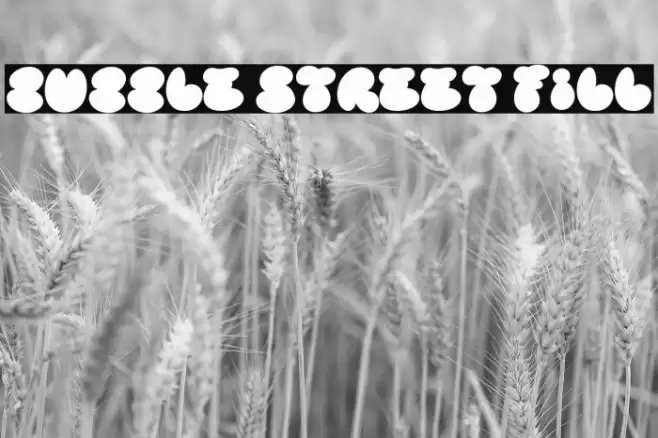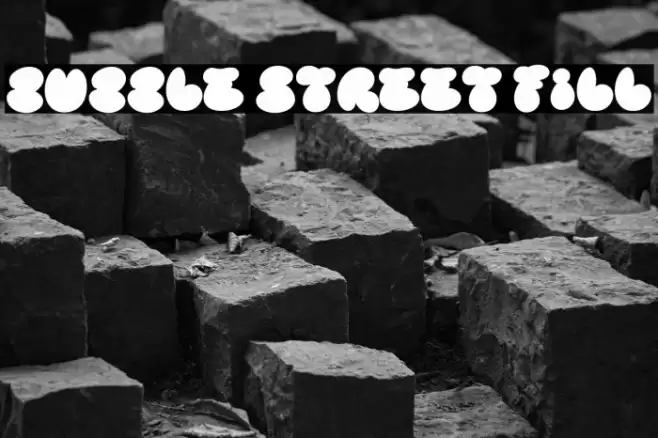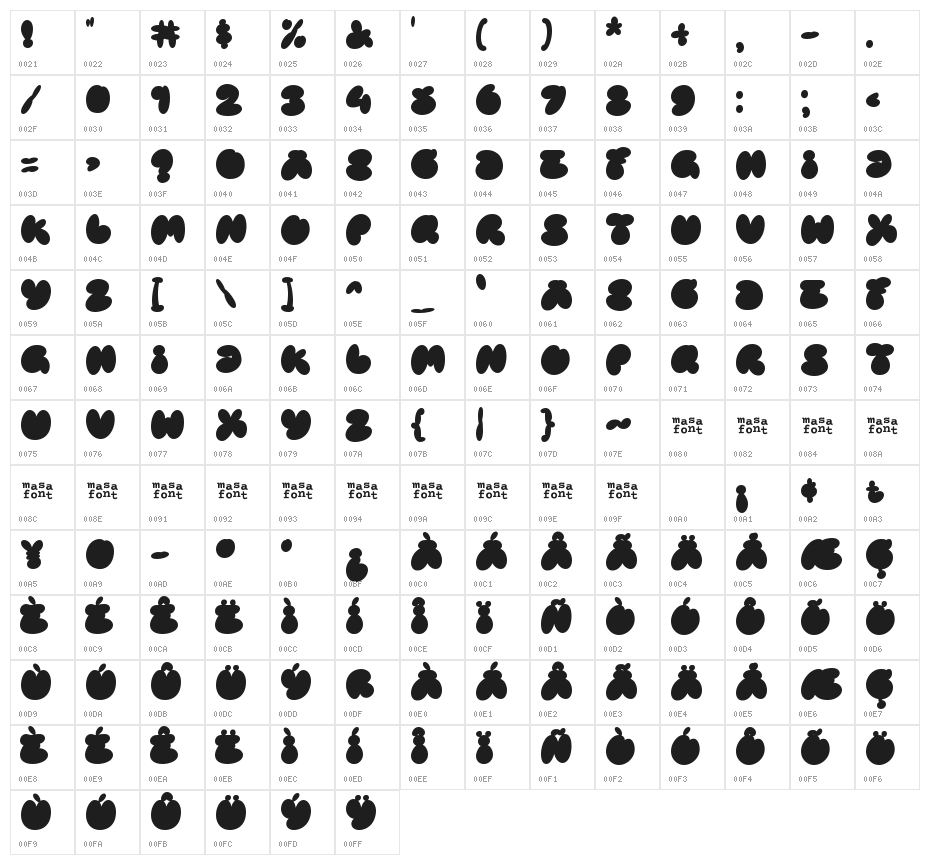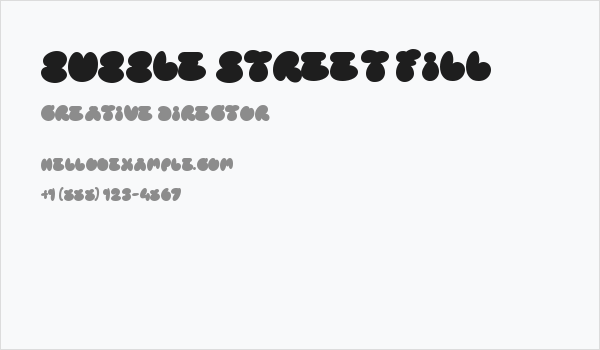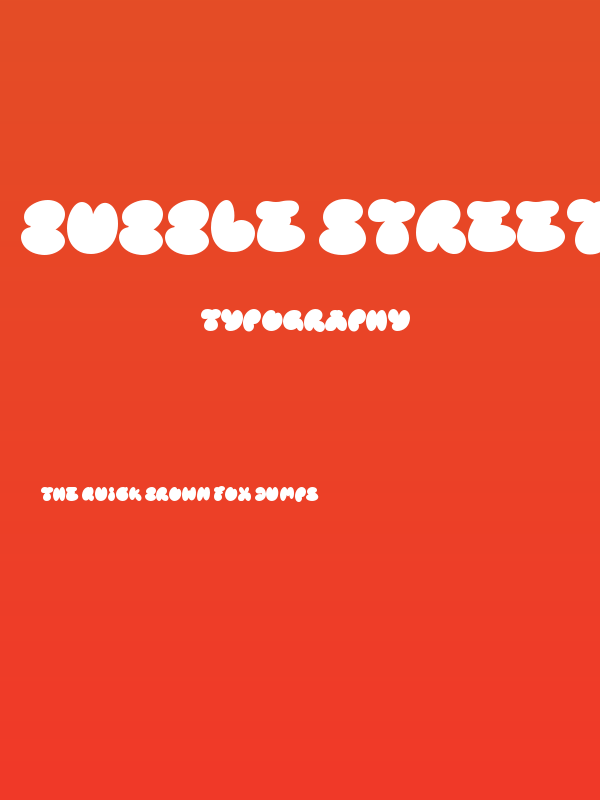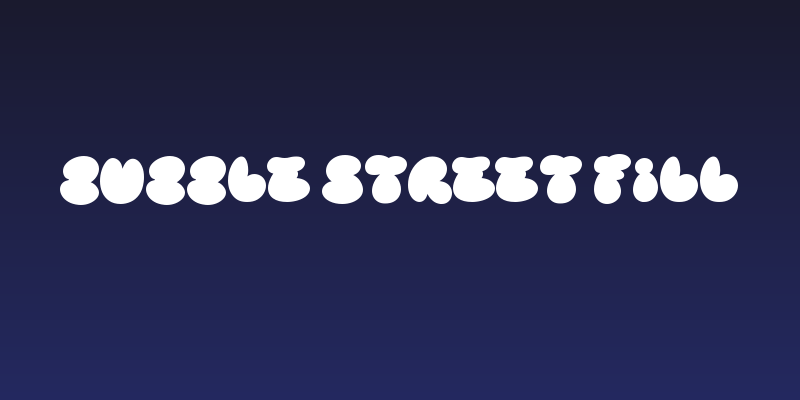
Bubble Street Fill Font
Bubble Street Fill Description
This playful and bold font features rounded, bubble-like characters that exude a sense of fun and whimsy. The letters are thick and filled, creating a strong visual impact that is both eye-catching and approachable. The uniformity in the rounded shapes gives it a cohesive look, while the exaggerated curves and fullness add a touch of uniqueness. This font is perfect for designs that aim to convey a lighthearted and cheerful tone. The characters are evenly spaced, maintaining a balanced appearance across all text. Its distinct style makes it suitable for creative and informal applications.
A bold, playful font with rounded, bubble-like characters ideal for fun and informal designs from Uncategorized fonts.
- Font: Bubble Street Fill
- Proposed Projects: Ideal for children's books, party invitations, playful branding, and any project needing a whimsical touch.
- Overall Style: Playful, Whimsical